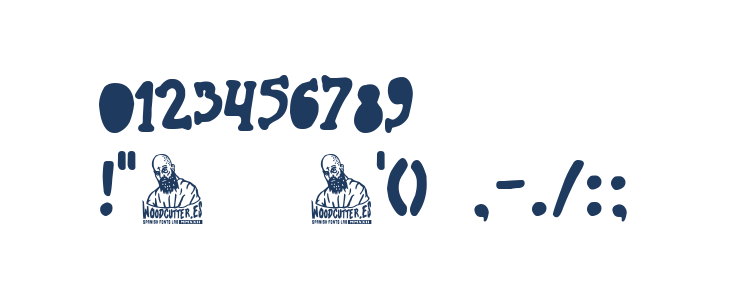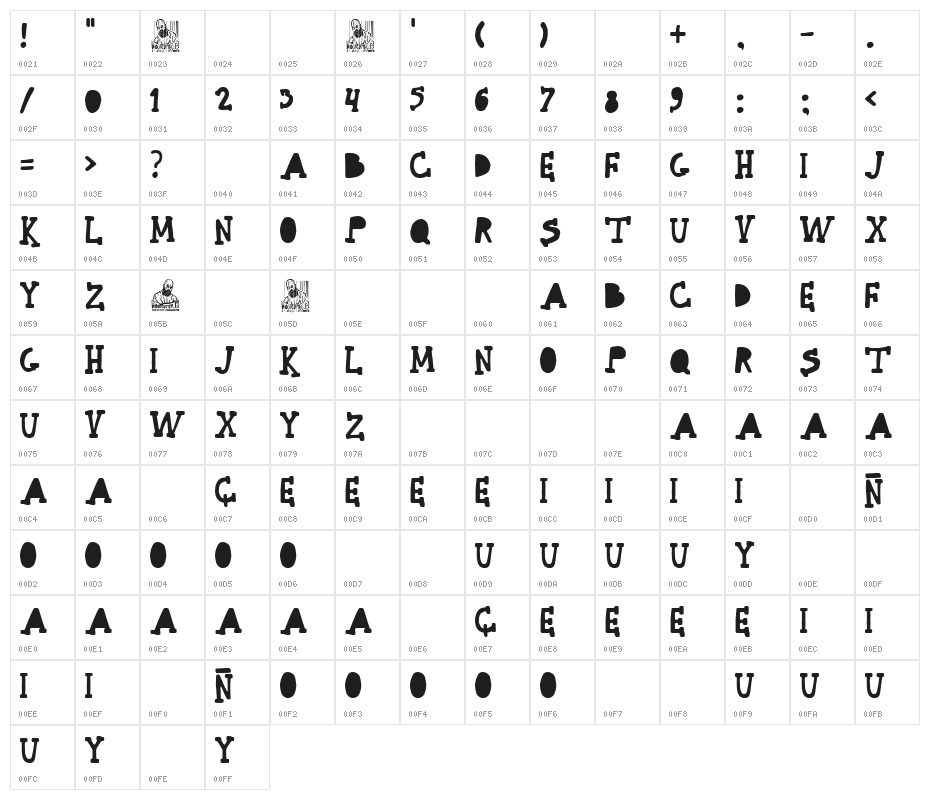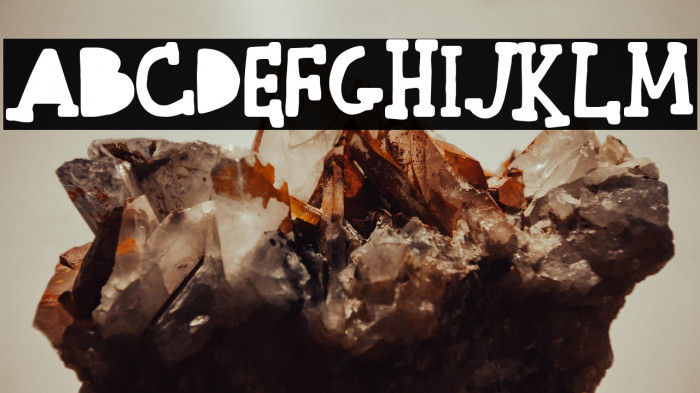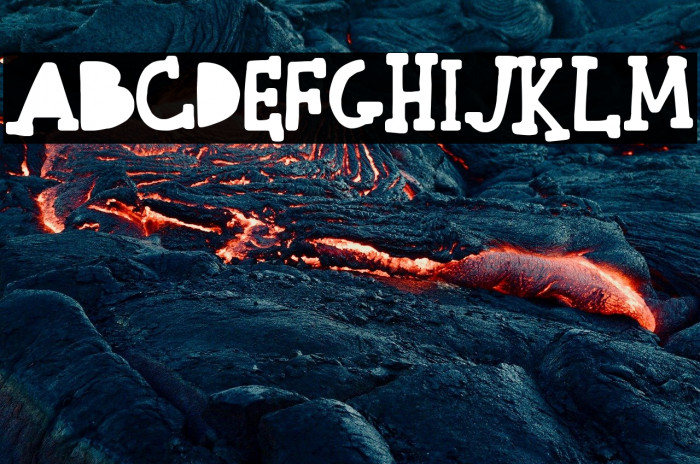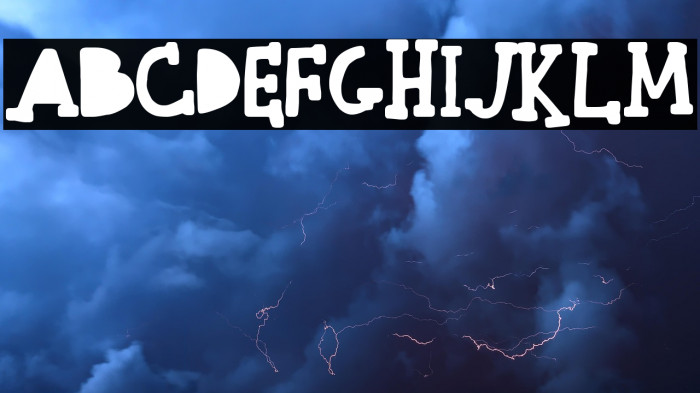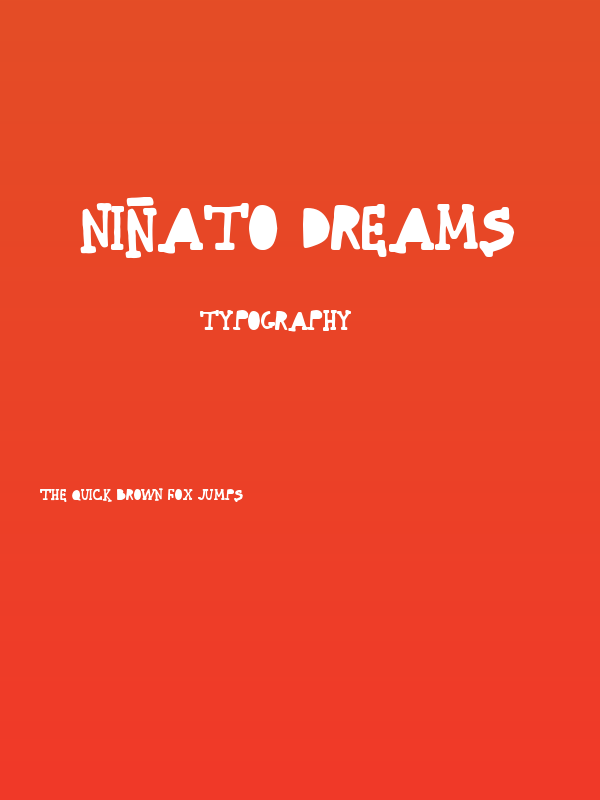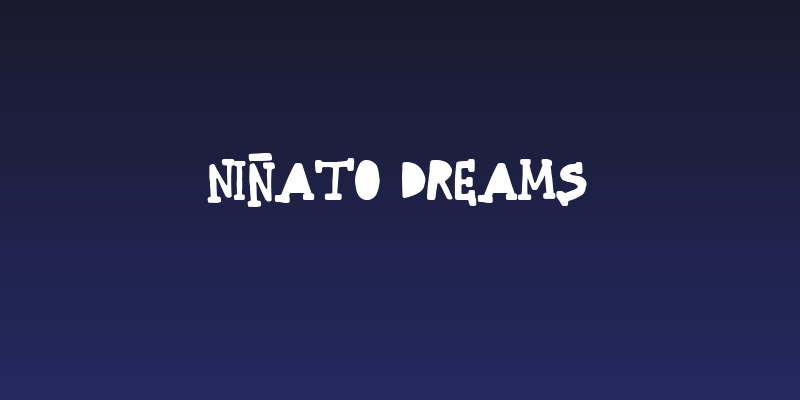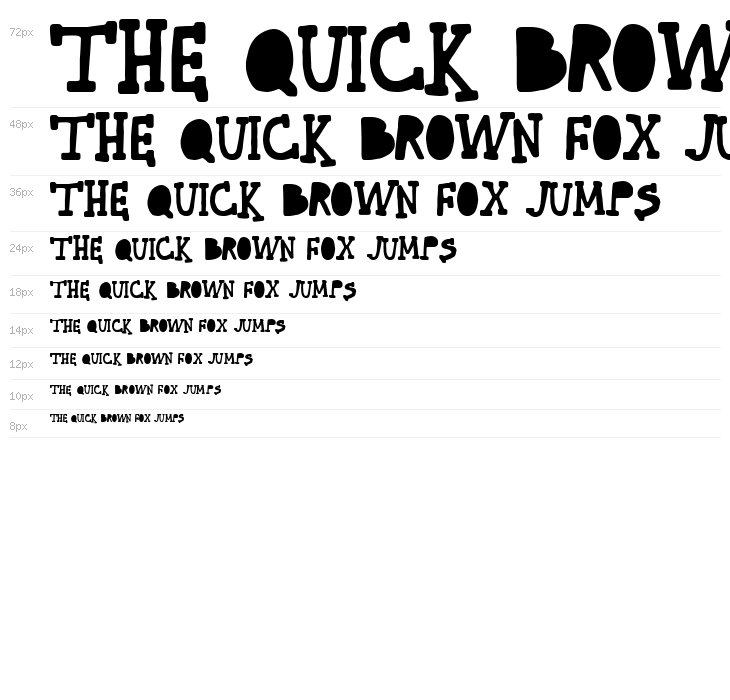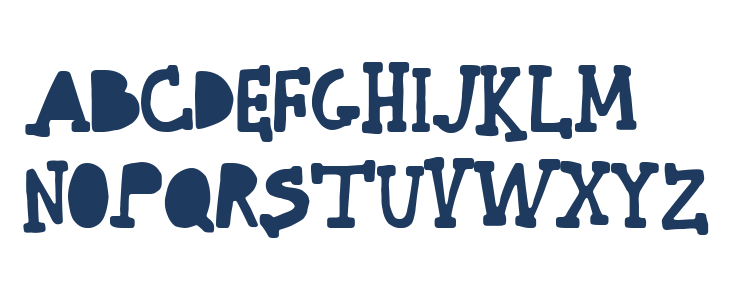
Niñato Dreams Font
Niñato Dreams Description
This font features a playful and bold design with a hand-drawn aesthetic. The characters are thick and rounded, giving them a friendly and approachable look. The uppercase letters are particularly striking, with exaggerated curves and a slightly uneven baseline that adds to the whimsical feel. The lowercase letters maintain this playful style, ensuring consistency throughout the typeface. Numbers and special characters are designed with the same boldness, making them easily legible. This font's unique style makes it stand out, perfect for projects that require a touch of creativity and fun.
| Overall Style | Playful, Whimsical, Hand-drawn |
| Use Case | Headlines, Posters, Creative projects |
| Proposed Projects | Ideal for children's books, playful branding, posters, and creative projects. |